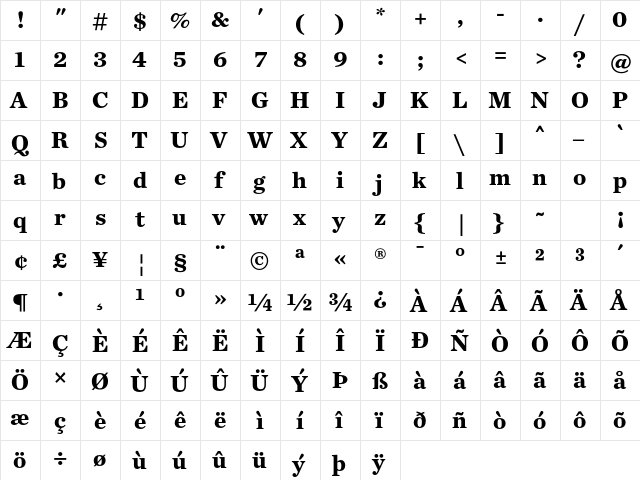
Chronicle Text G4 Bold
| Foundry | Hoefler & Frere-Jones |
| Designer | Hoefler & Frere-Jones |
Design Context for Chronicle Text G4 Typeface
Chronicle Text G4 is a composed and adaptable typeface that performs quietly and consistently across a wide range of design contexts. The heavy weight commands attention and anchors typographic hierarchies.